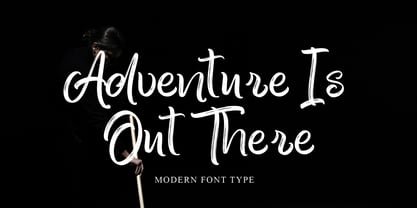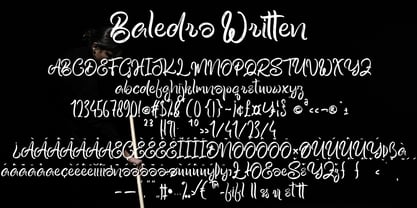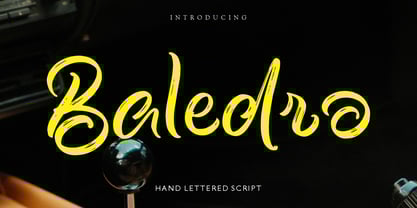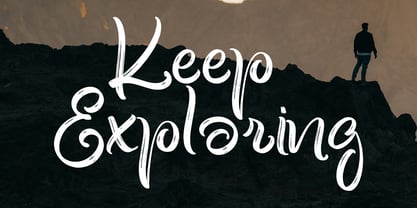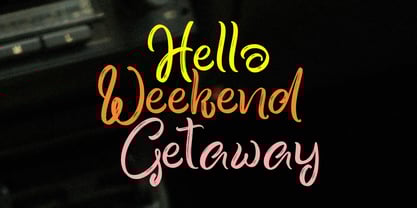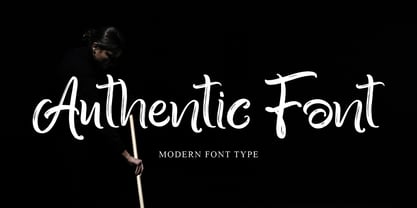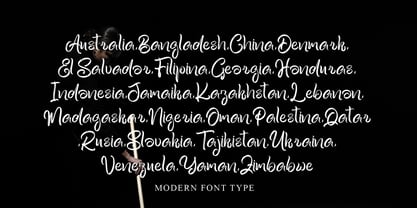
Baledro
by Gian Studio
The Baledro Font Family was designed by Yusliana M Isa and published by Gian Studio. Baledro contains 1 styles.
Baledro is textured brush font, featuring a contemporary approach to design, naturally handmade and with underscores. It also has alternatives and ligatures that make your design more attractive.
Baledro includes a complete set of uppercase and lowercase letters, as well as multi-language support, numbers, punctuation.
Designers: Yusliana M Isa
Publisher: Gian Studio
Foundry: Gian Studio
Design Owner: Gian Studio
About Gian Studio